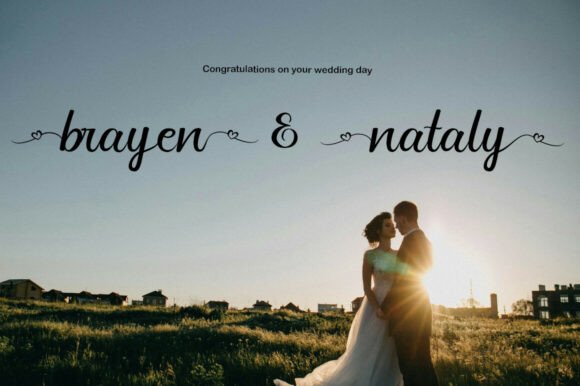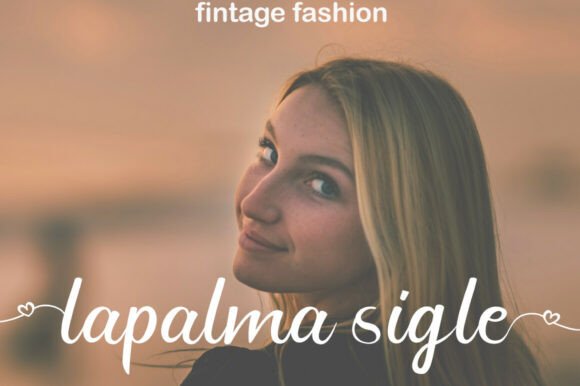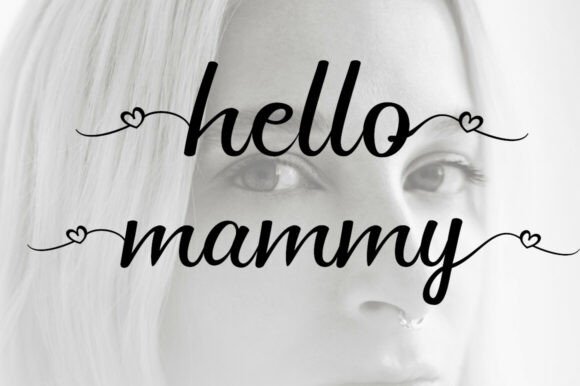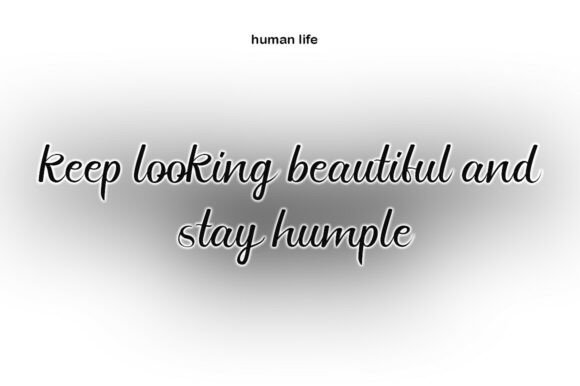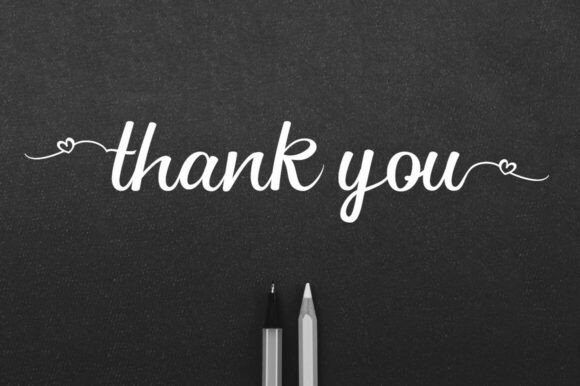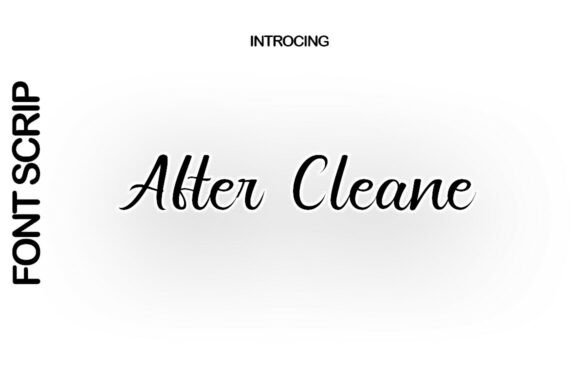
Introduction to Maddoniy Font
Have you ever stared at a blank page, trying to find the perfect font to bring your creative project to life? I’m sure many designers can relate to that moment of frustration and excitement, searching for the perfect design resource to convey their message. That’s exactly where the Maddoniy Font comes in – a beautiful, handwritten font that adds a touch of authenticity and charm to any design project.
The Maddoniy Font is a high-quality, modern handwritten font that’s perfect for branding, invitations, greeting cards, quotes, logos, posters, and social media content. Its smooth strokes and casual flow create a natural and elegant style that’s both stylish and versatile. Whether you’re working on a free download or a paid project, this font is a valuable asset for any designer looking to add a personal touch to their design.
With its transparent background and modern aesthetic, the Maddoniy Font is a must-have for any creative project. Whether you’re a seasoned designer or just starting out, this font is sure to elevate your designs and leave a lasting impression on your audience.
Maddoniy Font
- Unique, modern design that sets it apart from other fonts, making it perfect for creative projects that require a distinctive look.
- Perfect for use in logos, branding materials, and other design elements where a clean and modern aesthetic is desired.
Honest Review: Maddoniy Font
I recently came across the Maddoniy Font and was excited to dive in and see what it has to offer. As a designer, I’m always on the lookout for high-quality design resources to elevate my creative projects.
The first thing I noticed about the Maddoniy Font is its sleek and modern aesthetic. The font is perfect for any design project that requires a touch of sophistication. The transparent background option is a great feature, allowing you to easily layer the font over any image or background.
Here are some of the key features that work well:
- High-quality design that’s perfect for creative projects ✨
- Transparent background option for easy layering ✨
One limitation I found is that the font may not be suitable for all types of projects. It’s best used for modern and minimalist designs, and may not be the best choice for more traditional or vintage-style projects.
Overall, I’m impressed with the Maddoniy Font and would definitely recommend it to fellow designers. While it may have some limitations, its high-quality design and free download make it a great resource to have in your design arsenal.
Maddoniy Font
The Maddoniy Font is a high-quality design resource that can be used in various creative projects. Its unique characteristics make it perfect for designs that require a touch of elegance and sophistication.
The Maddoniy Font is commonly used in graphic design, digital art, and print design. It’s perfect for creating invitations, business cards, and other marketing materials that require a professional touch.
To get the most out of the Maddoniy Font, experiment with different font sizes, colors, and styles. Use the font in combination with other design elements to create a unique and eye-catching design.